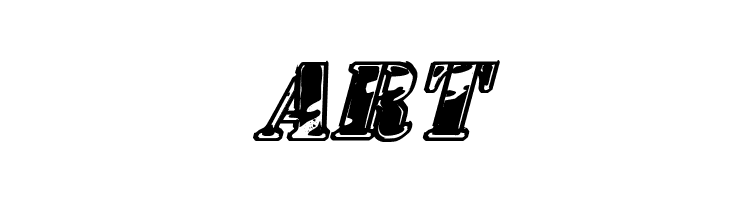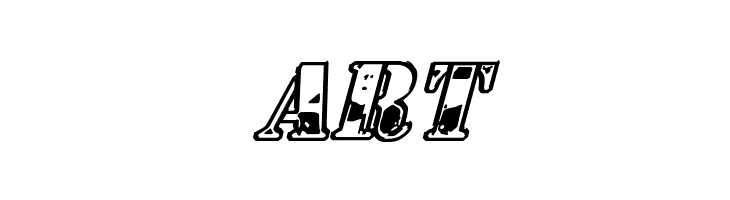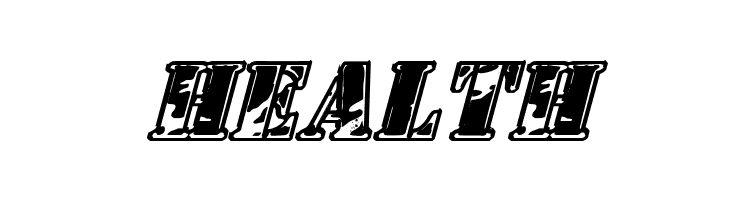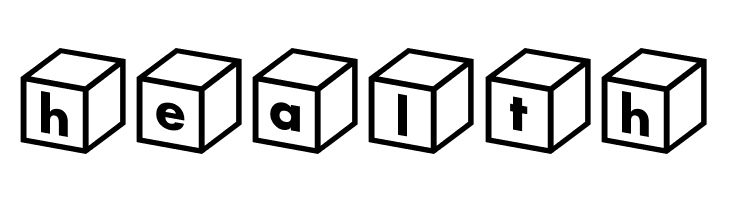
• 1BoxAL
A playful 3D box font with each character inside a cube, perfect for creative projects.
• 1ButtonAL
A playful, button-like font with characters encased in circular outlines, ideal for creative projects.
• 1cara hearts
• 1st Cav
A bold, distressed font with a vintage military style.
• 1st Cav
A bold, distressed decorative font with a vintage, grunge texture.
• 1st Cav II
A bold, distressed font with a vintage, grunge aesthetic.
• 1st Cav II
A bold, decorative font with a distressed, vintage look.
• 1st Cav II Italic
A bold, italicized font with thick outlines and a dynamic, retro-modern style.
• 1st Cav II Italic
Bold, italic font with camouflage pattern and thick outlines.
• 1st Cav Italic
A bold, italicized font with a distressed, grunge texture.